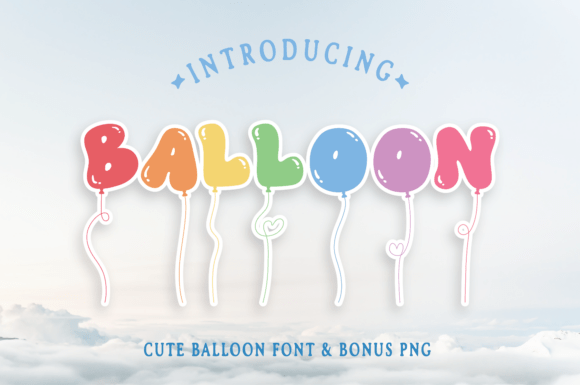
Unleash Your Inner Child: Discover the Joy of Balloon Font
Do you remember the thrill of unwrapping a birthday balloon on your special day? The excitement, the anticipation, and the sense of wonder that comes with it? That’s the same feeling you’ll get when you unleash your creativity with the Balloon Font. This delightful combination of outlined and filled lettering is sure to bring a smile to your face and a touch of whimsy to your designs.
Perfect for kid-inspired projects, the Balloon Font is a versatile tool that can add a playful twist to anything from t-shirt designs to book covers. With its adorable, light-hearted appeal, it’s no wonder designers are going wild for this charming font. And with 19 bonus PNG files to boot, the possibilities are endless. Whether you’re a seasoned pro or just starting out, the Balloon Font is a valuable addition to any design toolkit.
Balloon Font Key Features
- Font Family: A sans-serif font with a playful, rounded design.
- Unique Characteristics: Features a unique balloon-like shape for the letter ‘o’ and other rounded letters, giving it a distinctive and eye-catching appearance.
Designer Review: Balloon Font
Overall, I think the Balloon Font is a fun and playful addition to any design project. ✨ Its rounded, bubbly shape adds a sense of whimsy and friendliness to text. I particularly like it for titles and headings where you want to grab the reader’s attention.
The font’s versatility is another plus. It comes in a range of sizes, weights, and styles, making it easy to customize to fit your design needs. The smooth lines and curves make it suitable for both digital and print applications.
- ⚠️ In smaller text sizes, the font can become difficult to read. The rounded shape may cause some characters to blend together.
- ⚠️ The font may not be the best choice for formal or professional designs where a more traditional, serious font is preferred.
- ⚠️ The font’s uniqueness can also be a limitation, as some users may find it too playful or childish for their taste.
Overall, I would recommend the Balloon Font for designs where you want to add a touch of fun and personality. While it may not be suitable for every project, it’s a great choice for titles, headings, and other design elements where you want to stand out.
Use the Balloon Font to add a playful touch to your designs, such as in children’s birthday invitations or party decorations.
Use the Balloon Font to create:
- Birthday and party invitations.
- Children’s book illustrations.
- Playful social media graphics.